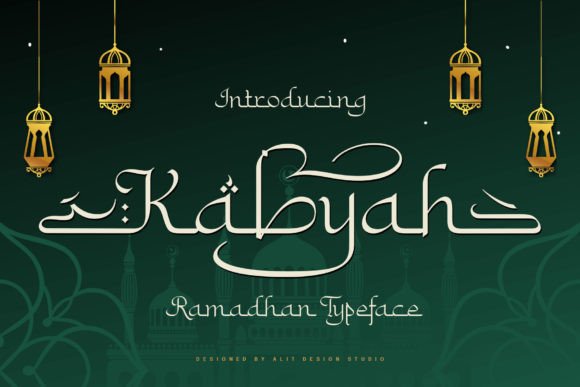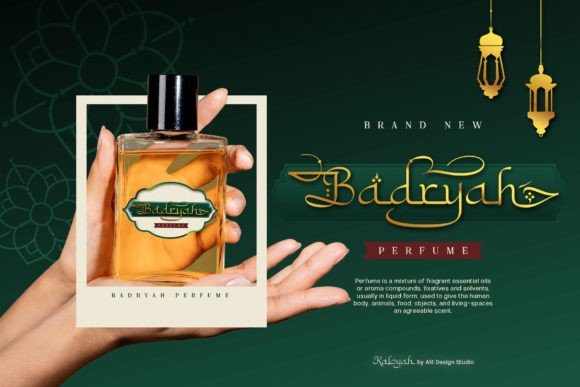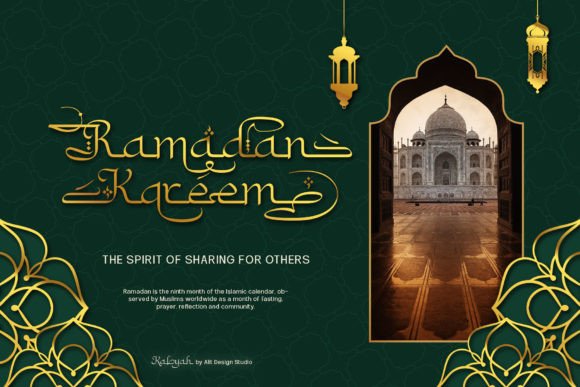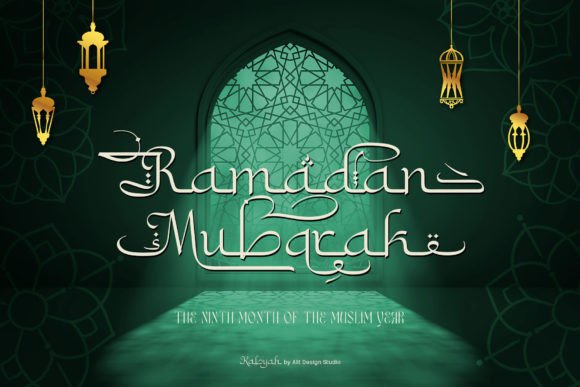
Kabyah Font: Elegant Script Typography for Ramadan & Branding!
About the Kabyah Font
Introducing the Kabyah Font, a beautifully crafted typeface designed to elevate your creative projects. This exquisite Indian-style script font is a true work of art, with its intricate detailing and graceful curves inspired by traditional calligraphy. Kabyah brings a touch of Eastern elegance to any design project, whether it’s for branding, invitations, or editorial layouts. Its unique and striking appearance will captivate audiences and leave a lasting impression.
Kabyah’s elegant, yet intricate nature makes it ideal for headlines, short text blocks in branding materials, or as an accent font in invitations and packaging design. Its ornate details, however, make it less suitable for body text or UI elements where readability is paramount. Long paragraphs set in Kabyah would be difficult to read.
The font’s personality is sophisticated and refined, lending itself to luxury brands or projects requiring a touch of exotic flair. Consider pairing Kabyah with a clean sans-serif like Montserrat for a contemporary contrast, or a classic serif such as Garamond for a more traditional feel. A simple, geometric sans-serif would also provide a strong counterpoint to its ornate forms.
For a more playful effect, a handwritten script font could be used alongside Kabyah, but ensure sufficient contrast in weight and style to maintain readability.